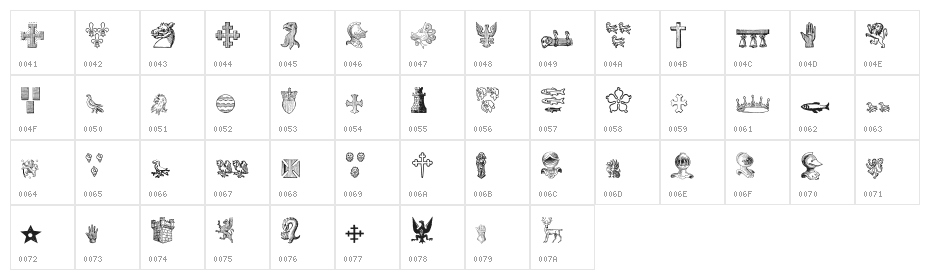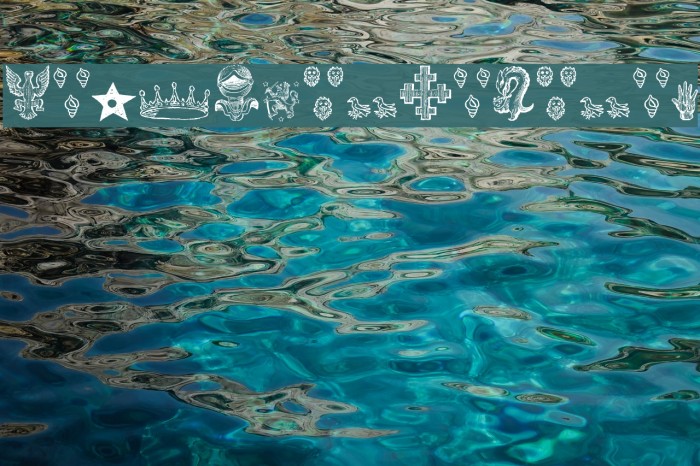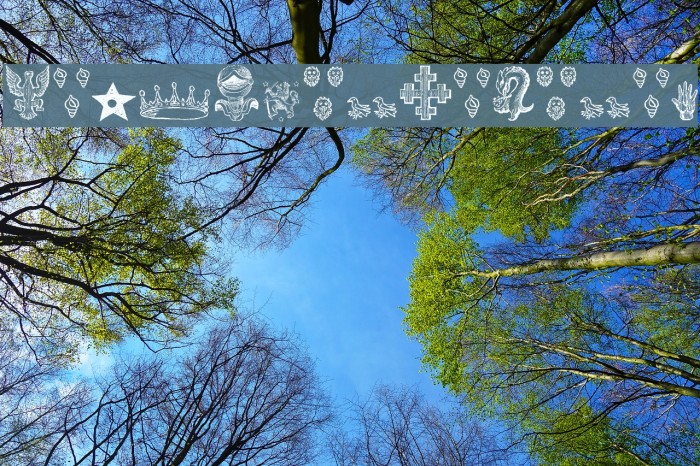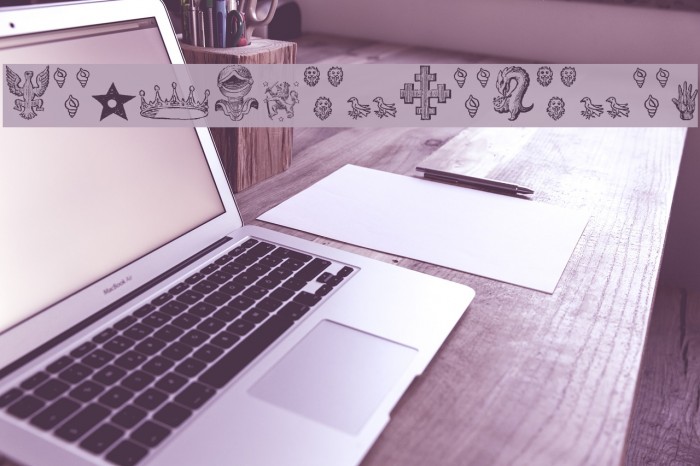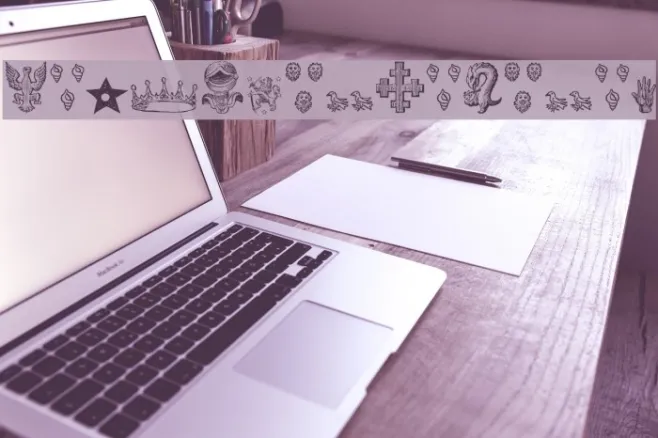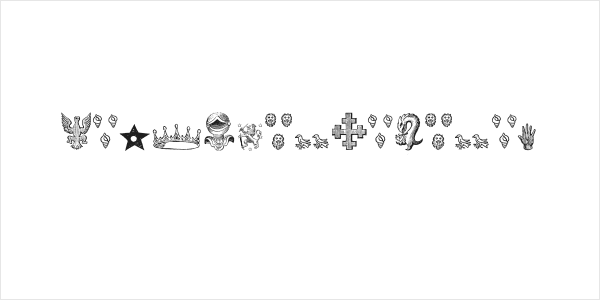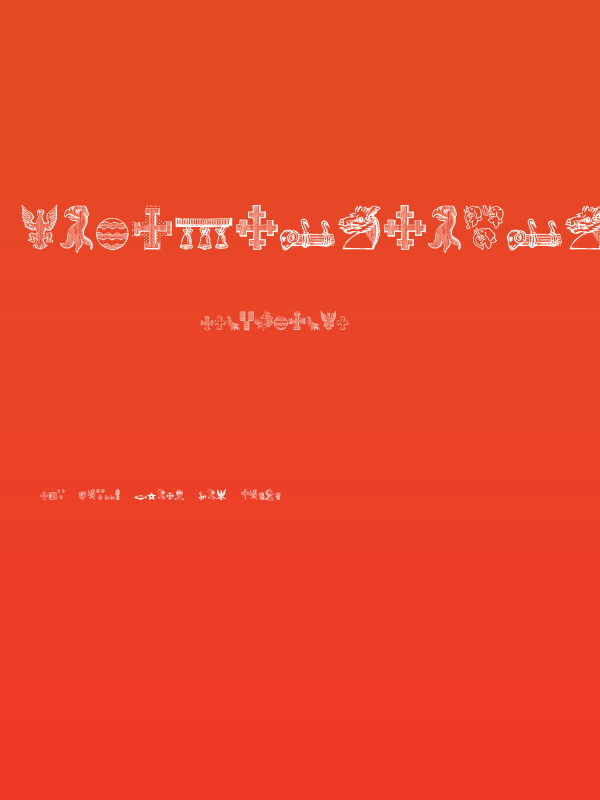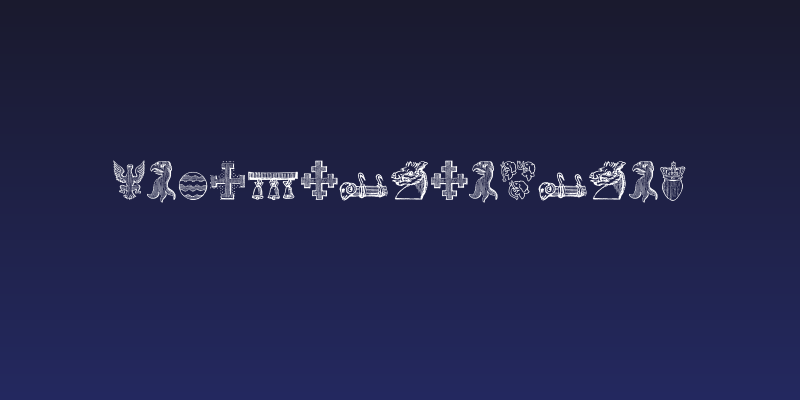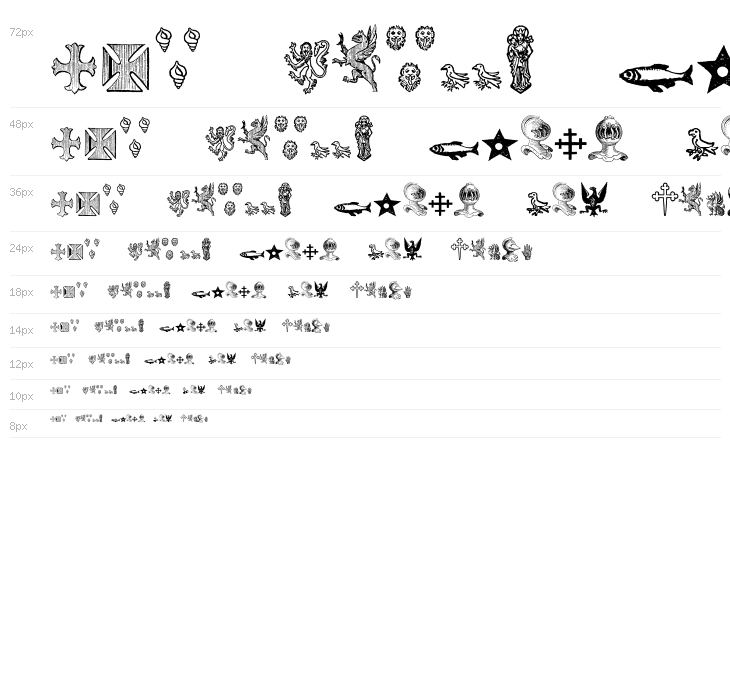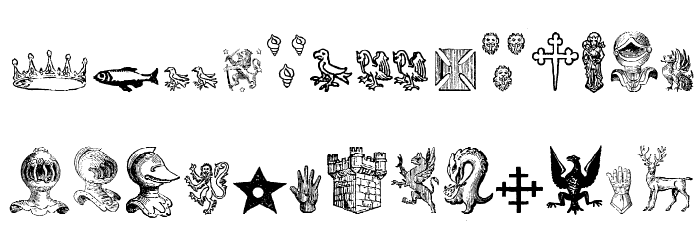
HeraldicDevices Font
HeraldicDevices Description
A collection of detailed, black-and-white heraldic symbols and devices, including animals, shields, crowns, crosses, and other traditional emblems, rendered in a hand-drawn, engraved style with intricate linework and shading.
| Overall Style | Vintage, Decorative, Classic |
| Use Case | Logos, Decorative elements, Themed event materials, Illustrations |
| Proposed Projects | Coat of arms design, historical documents, fantasy maps, book covers, medieval-themed branding, educational materials. |